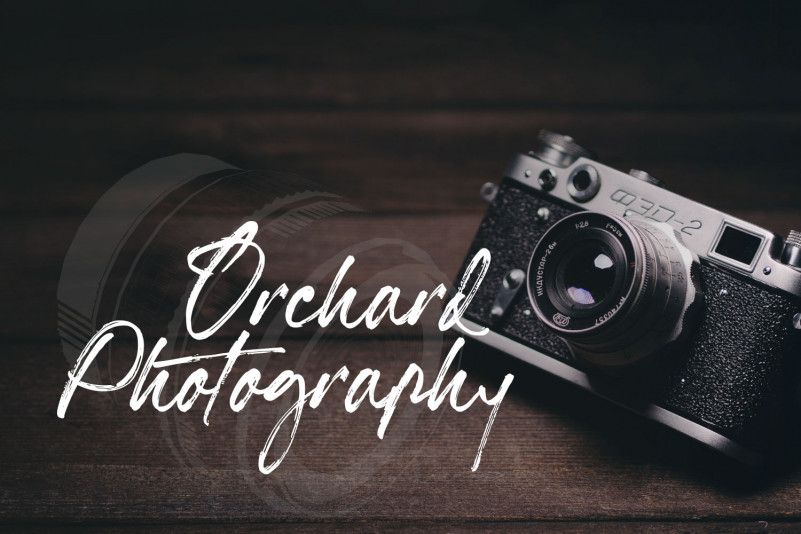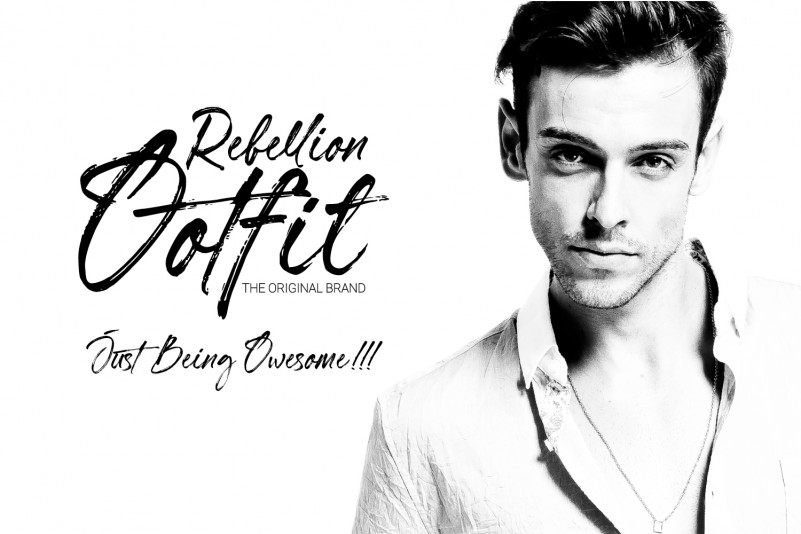
Hillstone Font
Hillstone Font is a handwritten font with a rough texture, the process of making letters with scratched with strong and fast stroke on paper to make the rough texture that characterizes of Hillstone, so this is a font with a rough and dry brush style.
We repaired the letters computerize and if they didn’t unite well and we made several alternate glyphs.
There is no problem for long or short text, so this font can be used in various designs widely. you can use this font for Instagram, quotes and other long text, this font is also unique for one-word text or short typing, that you can use for product brands, company logos, books and magazine covers, every type will look very typical. use ligatures and alternatives to your taste.38.